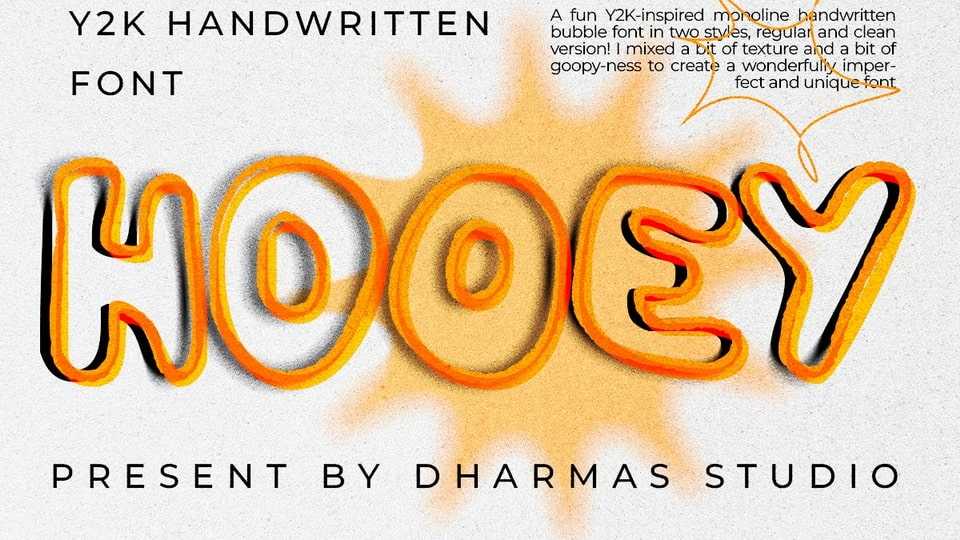
Download Hooey font, a fun Y2K inspired monoline handwritten bubble font, mixed a bit of texture and a bit of goopy-ness to create a wonderfully imperfect and unique font.